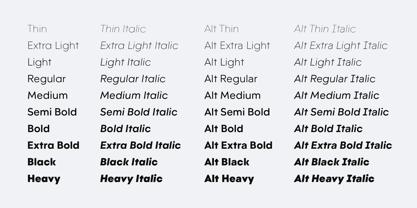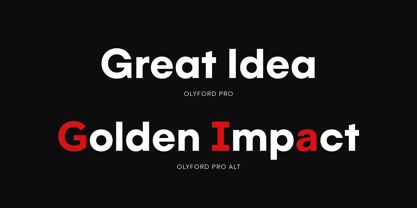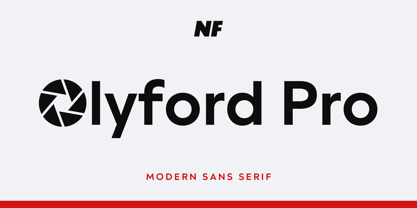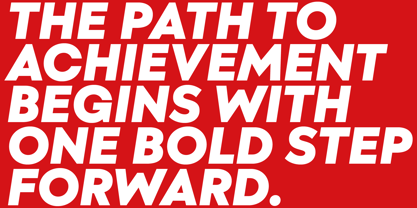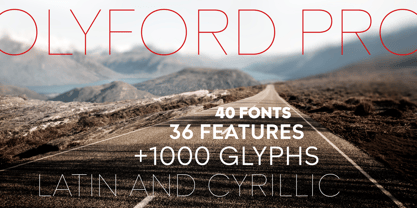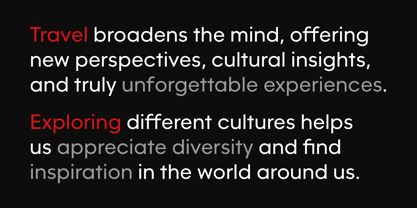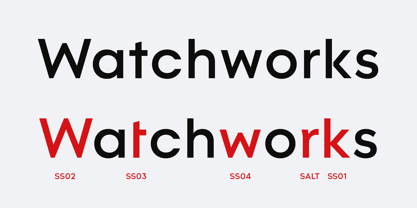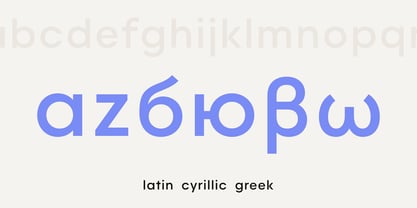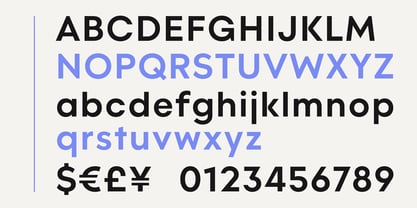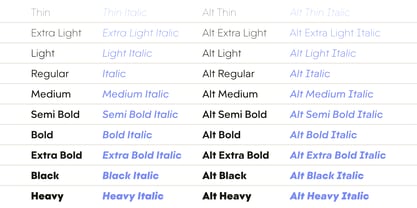
Olyford Pro
by NicolassFonts
The Olyford Pro Font Family was designed by Nikolay Savchuk and published by NicolassFonts. Olyford Pro contains 40 styles and family package options.
Olyford Pro is the enhanced professional version of the Olyford typeface, designed for both web and print. The Complete Family offers 40 fonts, comprising Olyford Pro (20 fonts) and Olyford Pro Alt (20 fonts), the latter featuring alternate designs for G, I, and a. With true italics, over 1,000 glyphs, 36 OpenType features, and support for Latin and Cyrillic, Olyford Pro is a highly versatile choice for a wide range of design projects.
Savchuk Mykola began his career as a graphic designer. Over time, he had a desire to create a font that would reflect his view of typography. ‘They say that all ingenious things are simple, although unique. In my future projects, I want to reflect simplicity on the one hand and uniqueness on the other, providing the ability to adjust individual elements using OpenType features to the fullest. I am amazed by the human ability to discover new and beautiful and I want to develop this ability.’